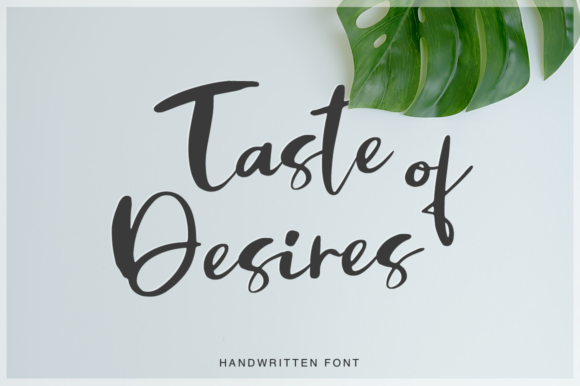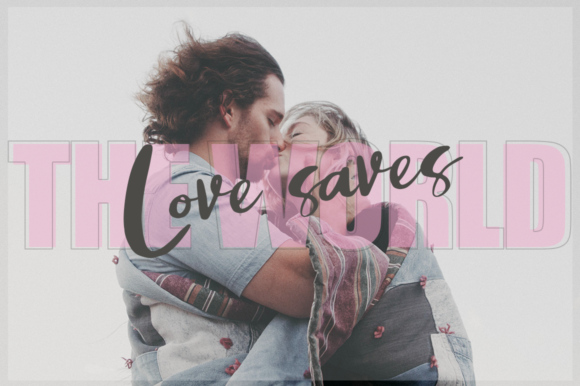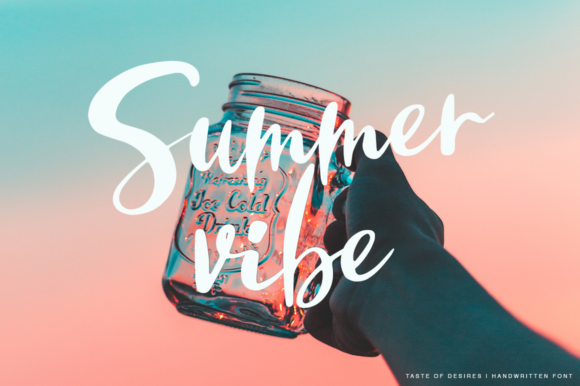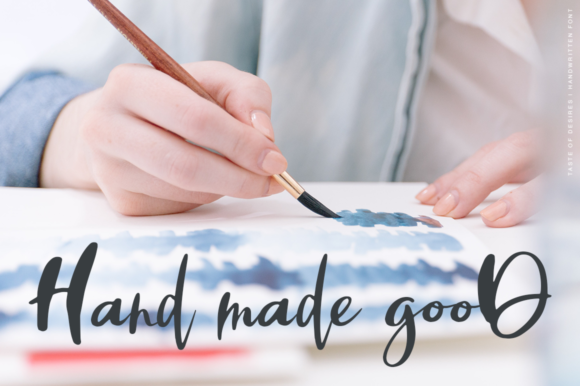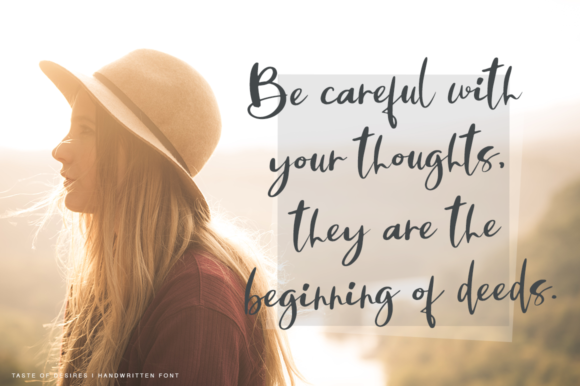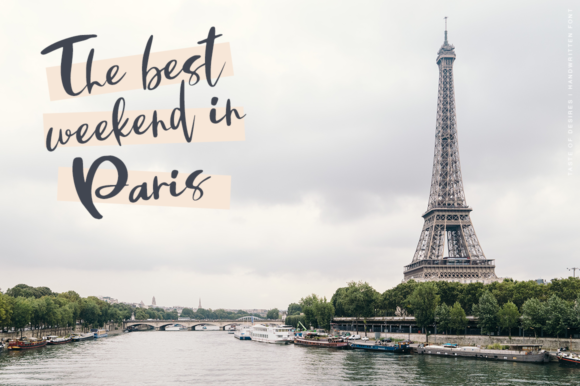
Taste of Desires Font
Taste of Desires script- a new fresh handmade calligraphy font.
This font is ideal for branding and decorate your projects. It can be used for wedding invitations or for your blog. It includes beautiful alternates and swashes.